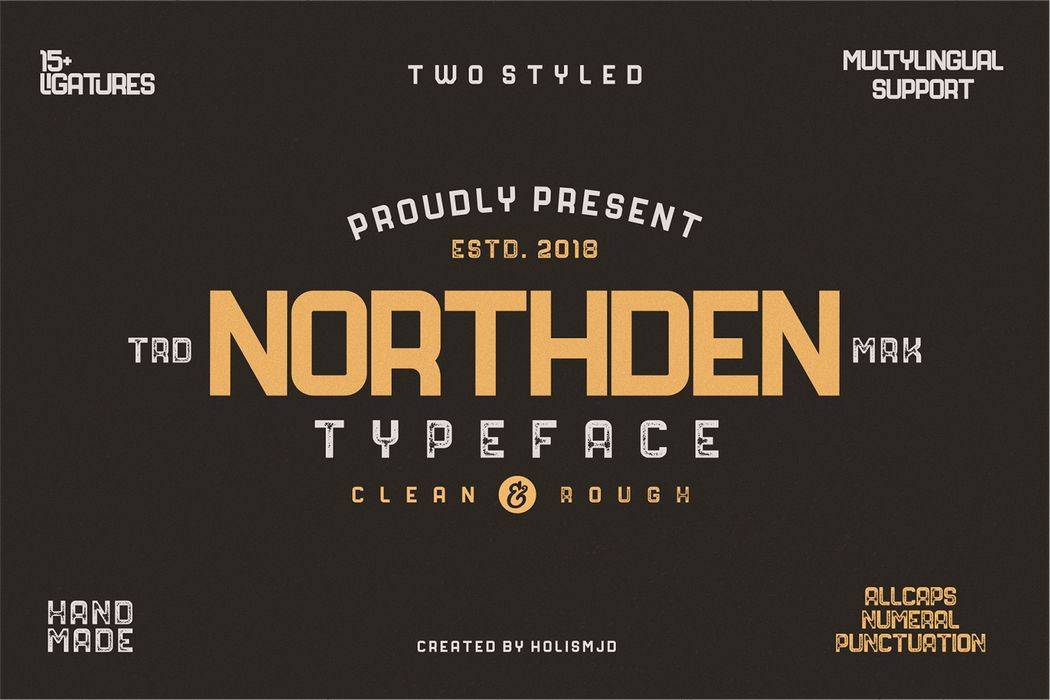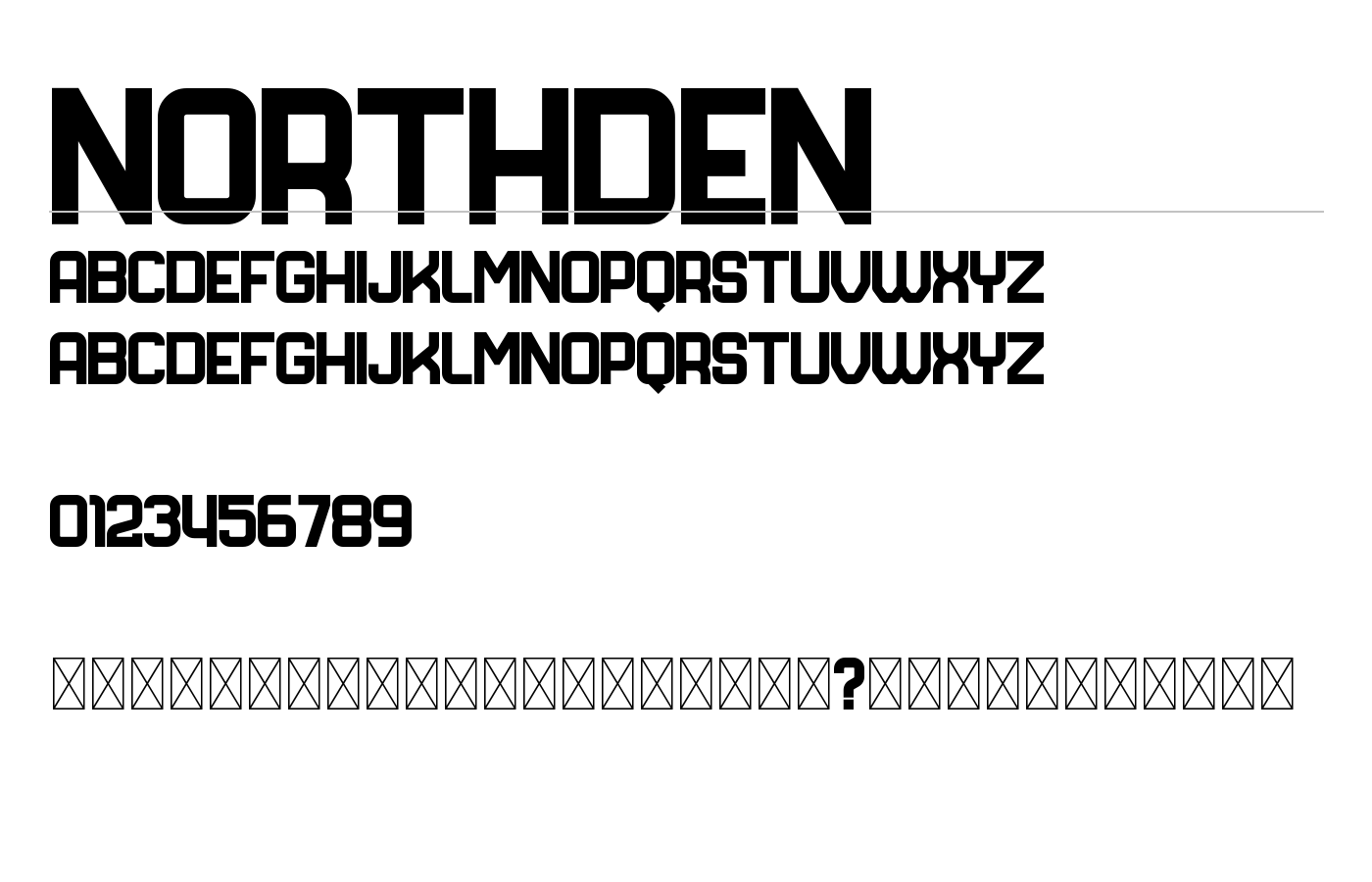
Northden is a bold, condensed sans serif font with a modern, geometric feel. Its clean, uniform strokes and squared shapes give it a strong, industrial appearance, making it ideal for impactful headlines, logos, and branding that require a contemporary, confident style. This font works best in designs where clarity and a sturdy presence are key, such as posters, tech brands, and editorial titles.
Northden Font
About Northden Font